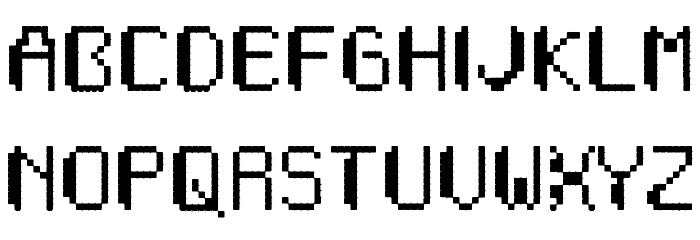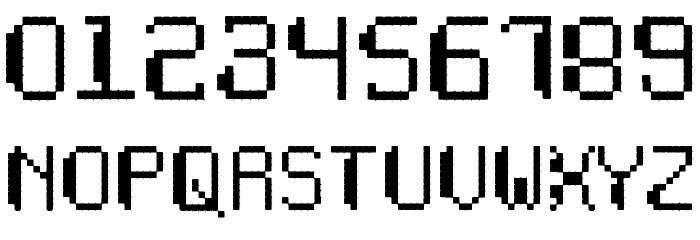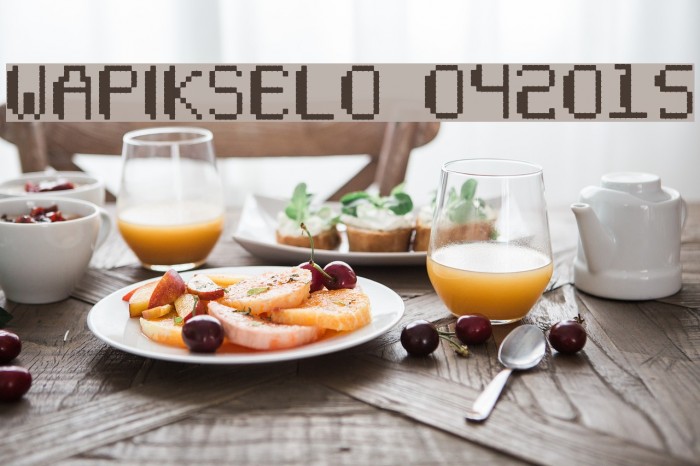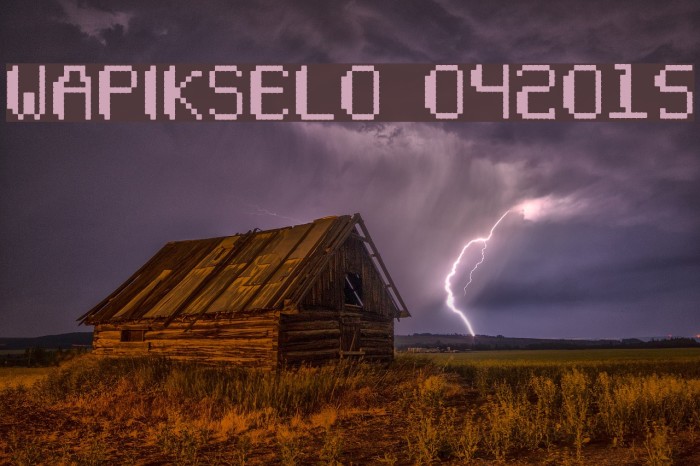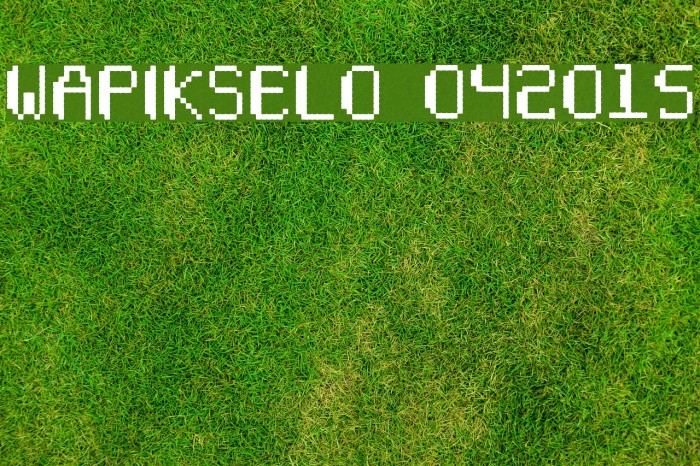
Wapikselo 042015 Font
This font features a pixelated, blocky design reminiscent of early digital or video game text. Each character is composed of square pixels, giving it a retro, 8-bit aesthetic. The uppercase and lowercase letters are uniform in height, contributing to a monospaced appearance. The numbers and special characters maintain the same pixelated style, ensuring consistency across all glyphs. The overall look is bold and striking, making it ideal for projects that aim to evoke nostalgia or a vintage digital feel. The font's simplicity and clarity make it easily readable, even at smaller sizes.
A pixelated, retro-style font with a bold, monospaced design.
- Proposed Projects: Ideal for retro video games, digital art projects, tech-themed posters, and nostalgic branding.
- Overall Style: Vintage
- Use Case: Headlines, Logos, Digital Art